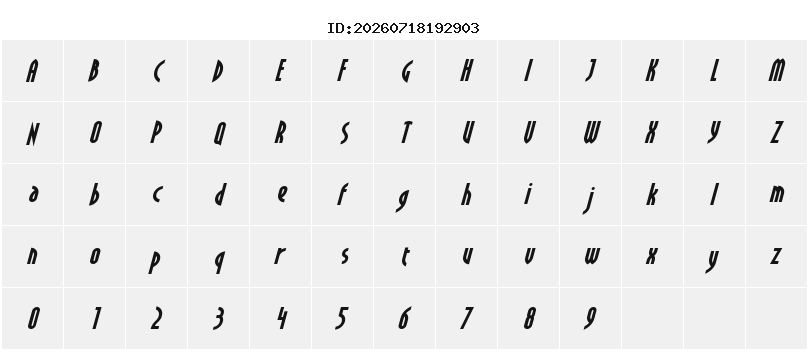
Crichton Preview
• Font Name: Crichton
• Font ID: Crichton Bold:Version 1.60
• Full Font Name: Crichton Bold
• Version: Version 1.60 April 1, 2015
• PostScript Name: Crichton-Bold
• Character Count: 242
• Designer: Neale Davidson
• Manufacturer: Pixel Sagas
About Crichton.ttf
Crichton.ttf is a modern, elegant sans-serif font designed for ultimate readability and visual harmony. Perfect for branding, headlines, web design, and print materials.